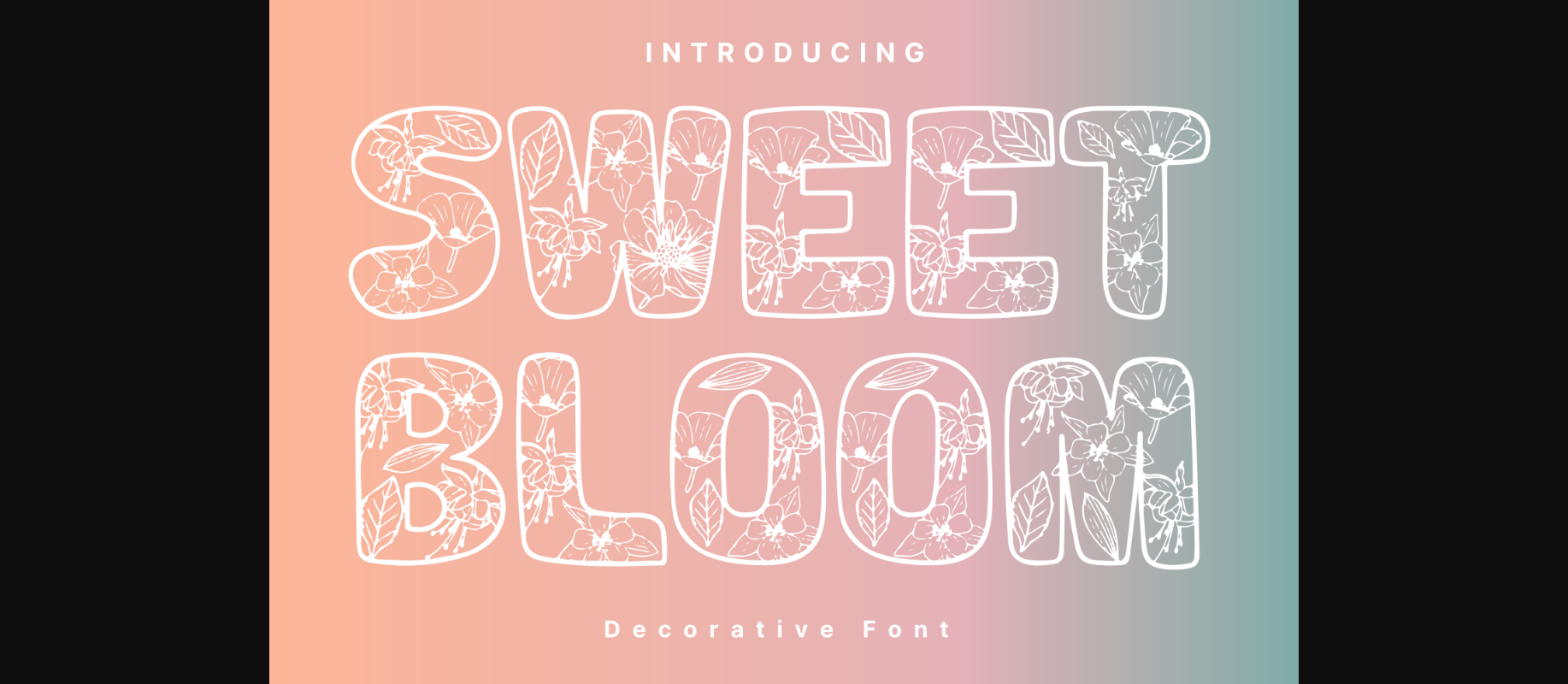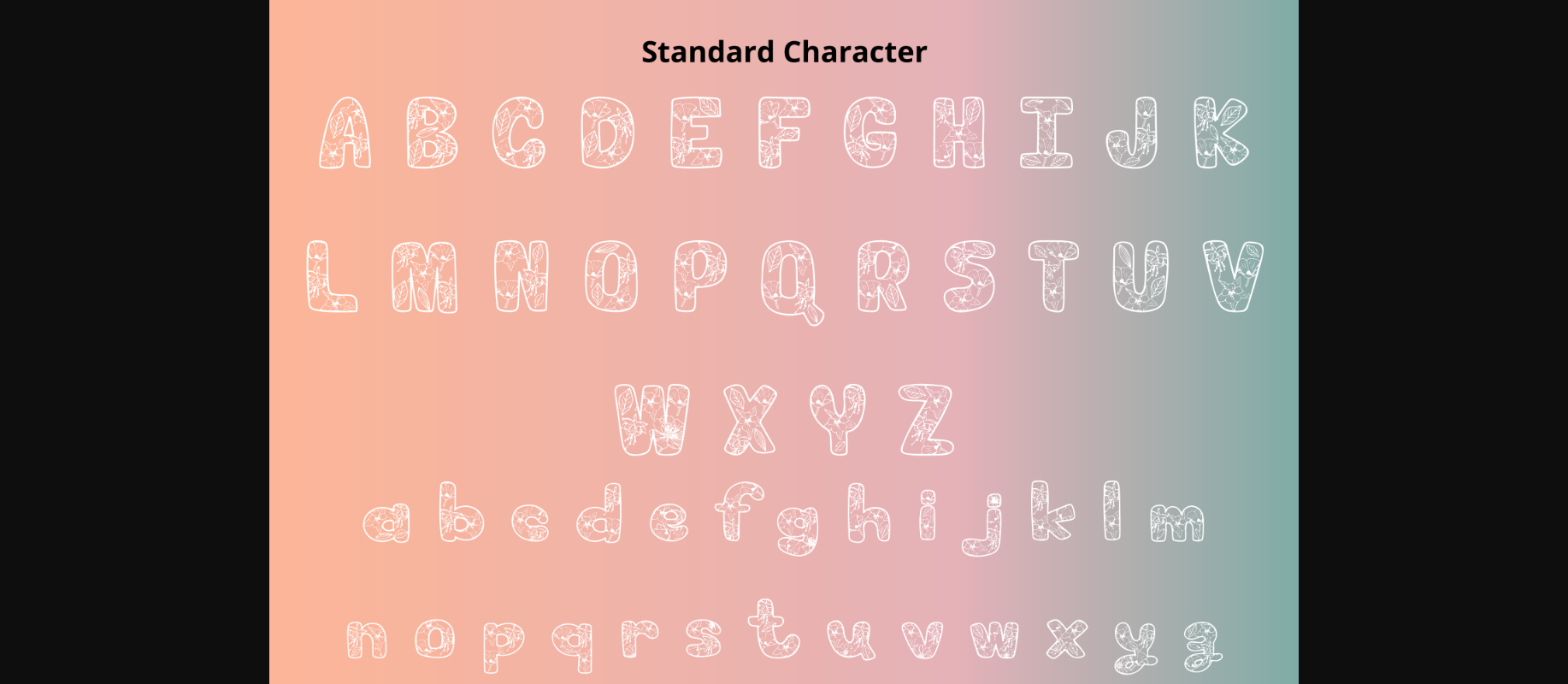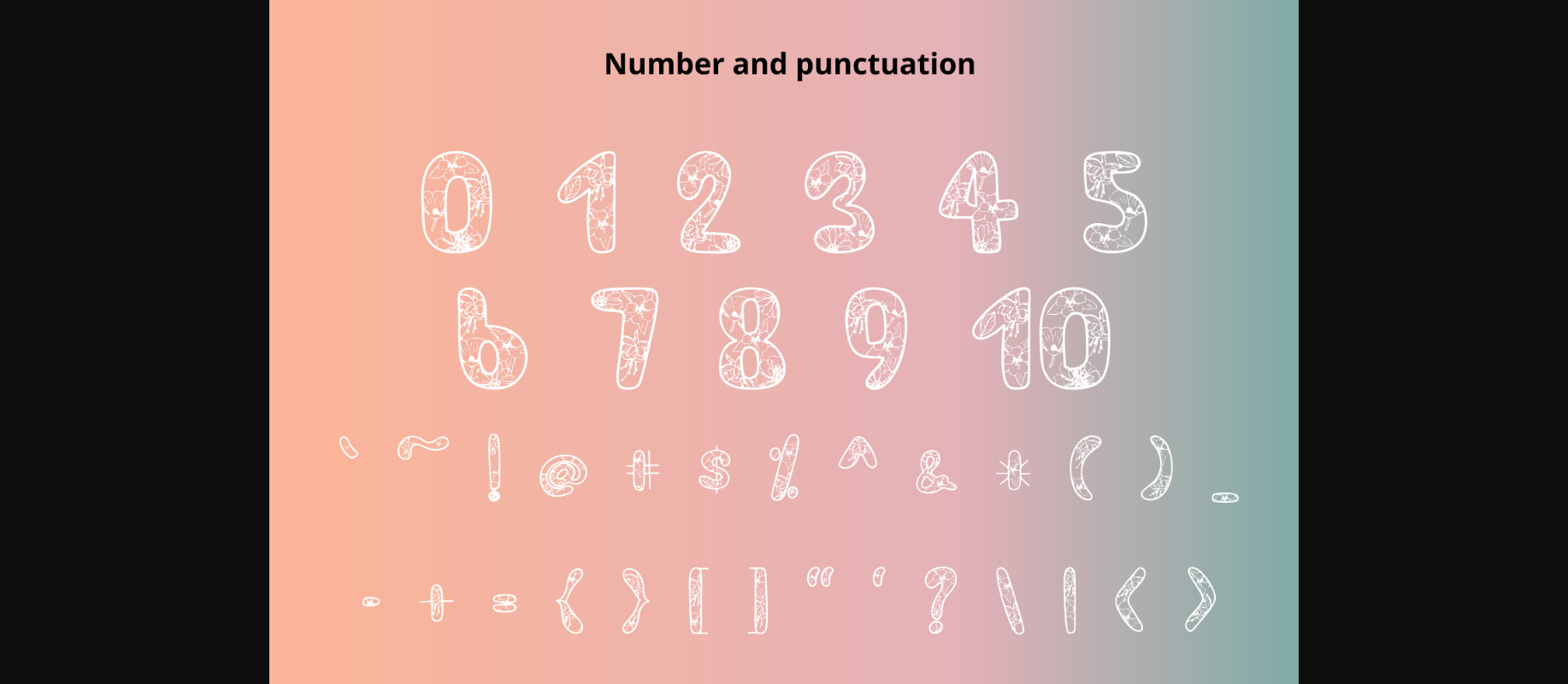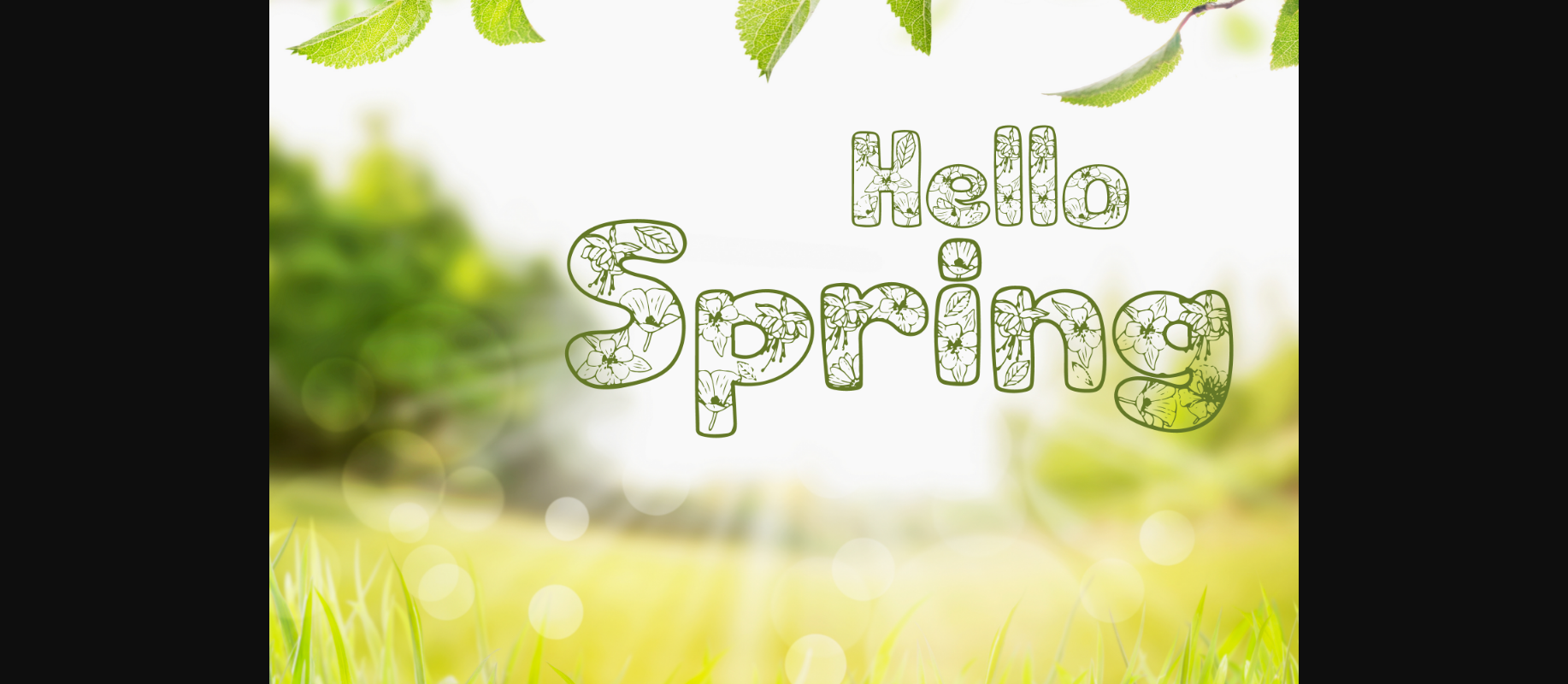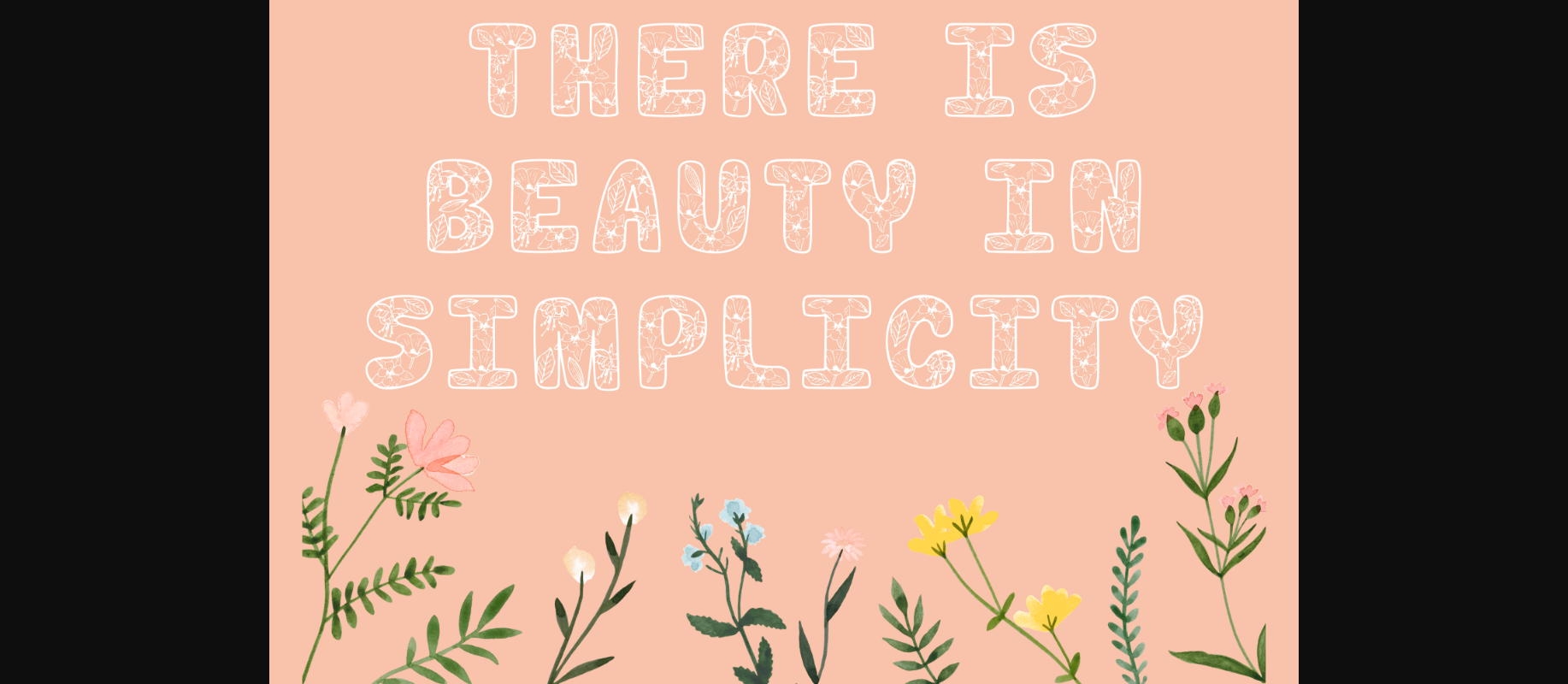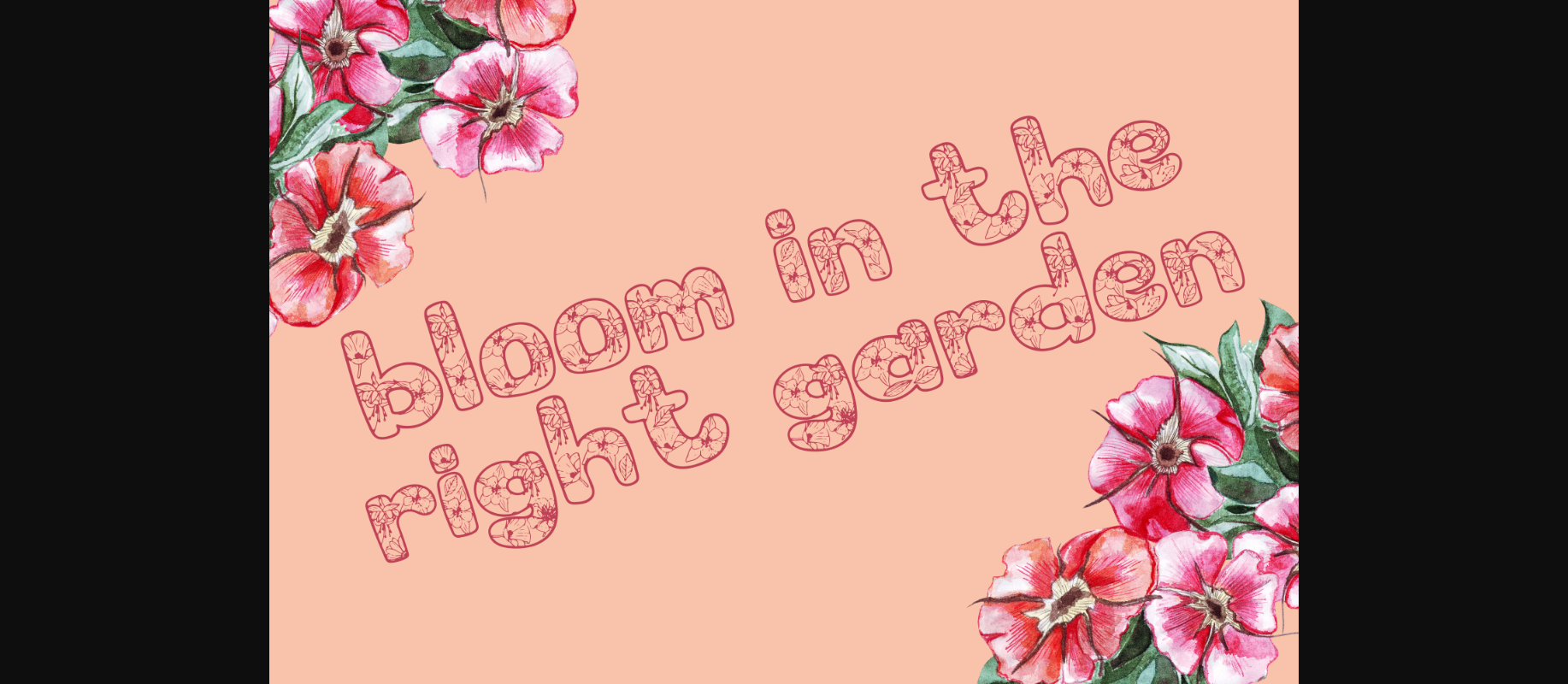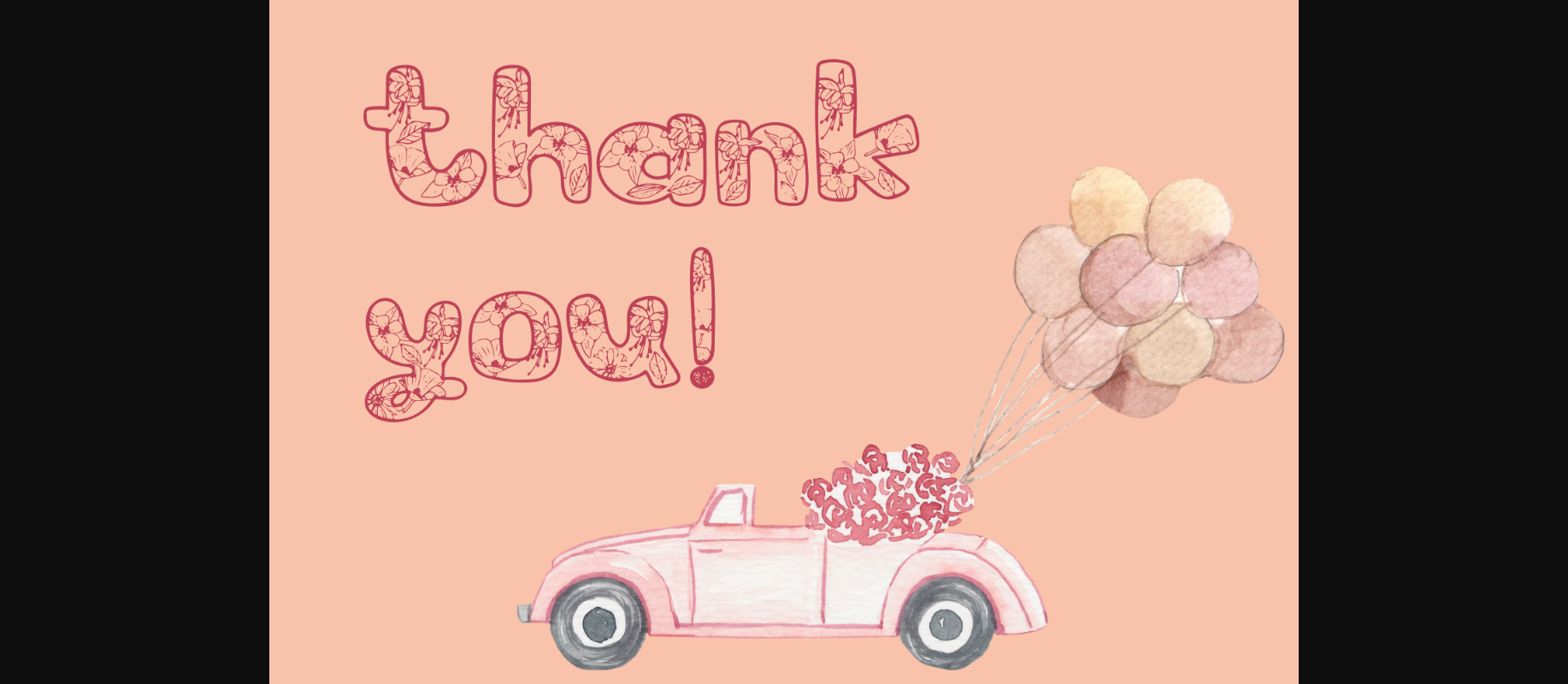
Sweet Bloom Font
About Sweet Bloom Font
Sweet Bloom is a whimsical and fresh decorative font. It can easily be matched to an incredibly large set of projects, so add it to your creative ideas and notice how it makes them stand out!